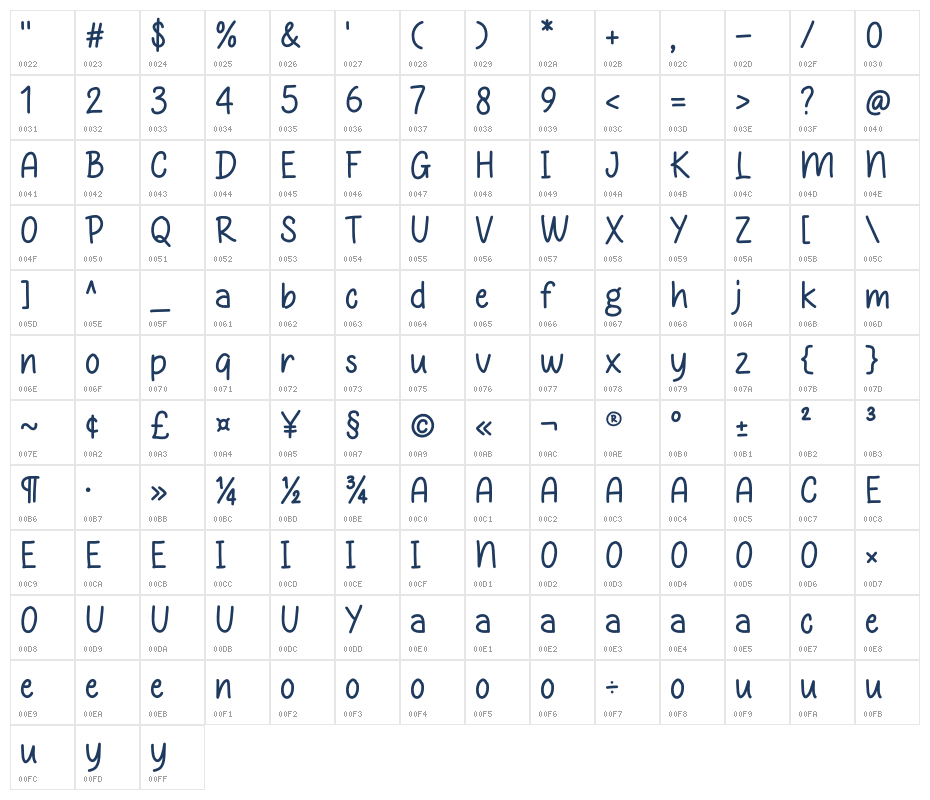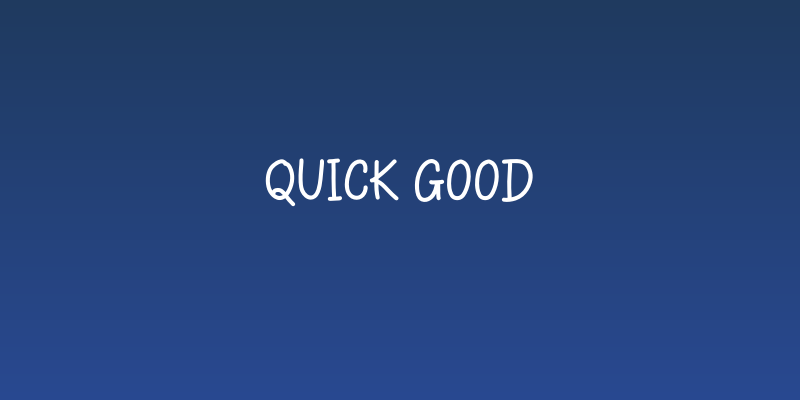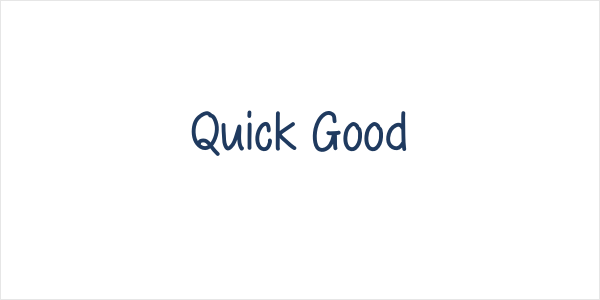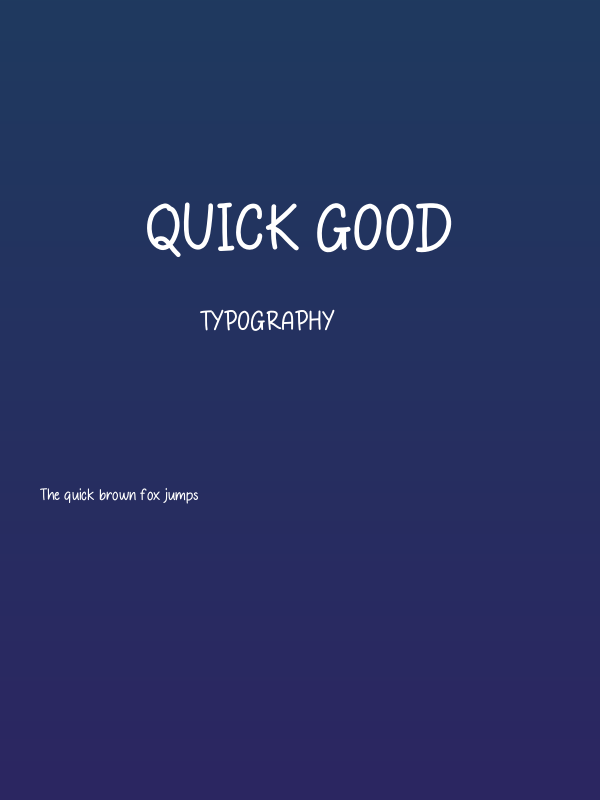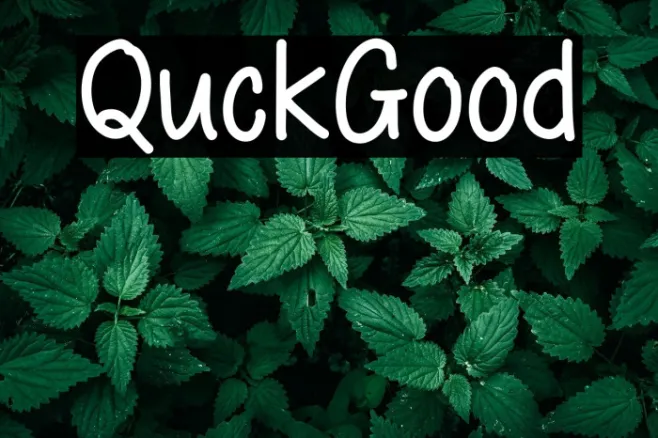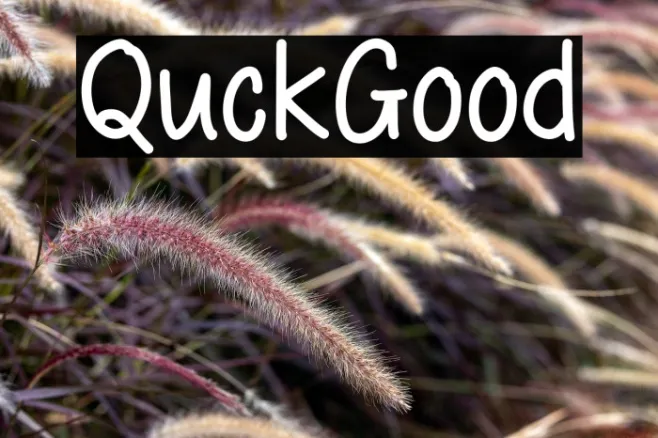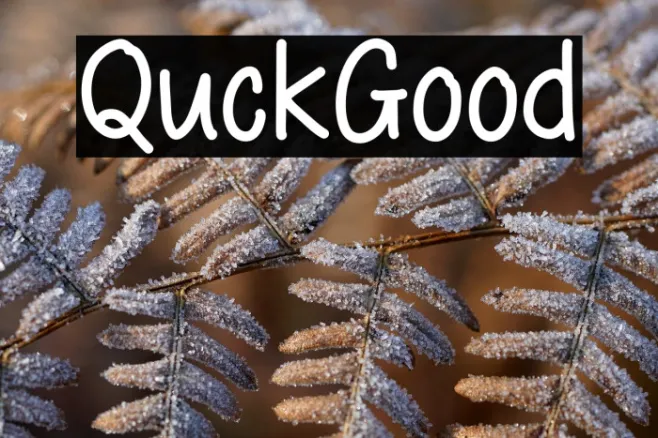
Quick Good Font
Quick Good Description
A playful, handwritten style font with rounded, casual letterforms.
| Overall Style | Casual, Friendly, Playful |
| Use Case | Headlines, Body text, Logos, Invitations |